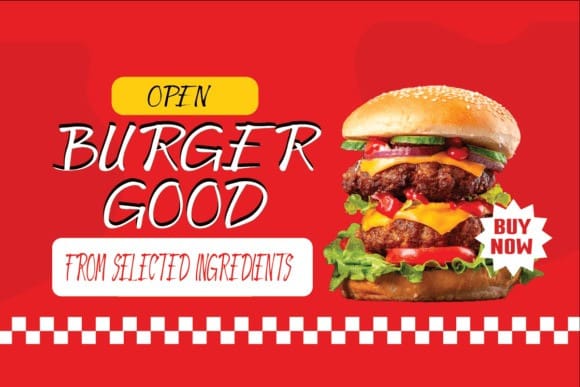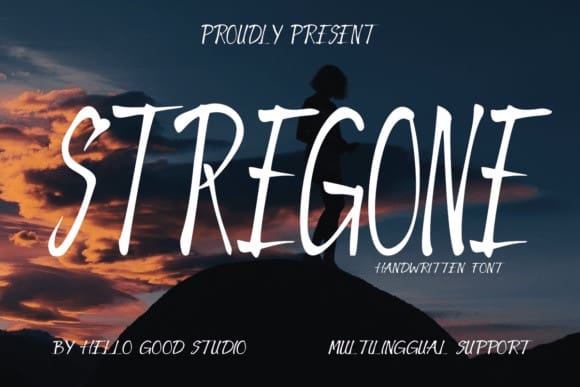
Stregone Font
Stregone Font is a handwritten font that uses the brush tool so that it looks natural. It is perfect for handicrafts or displays and also clothing, social media, flyers, book titles, cards and so much more!